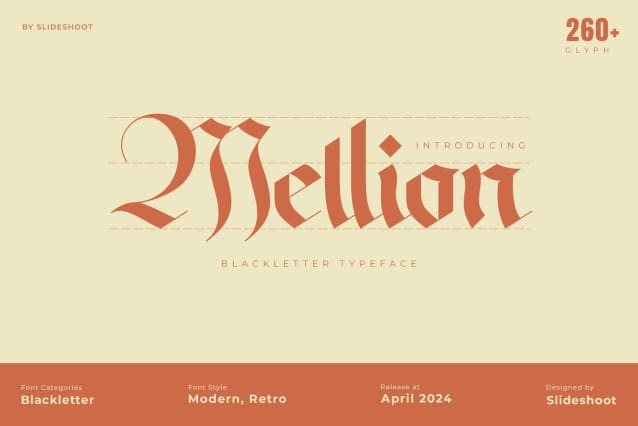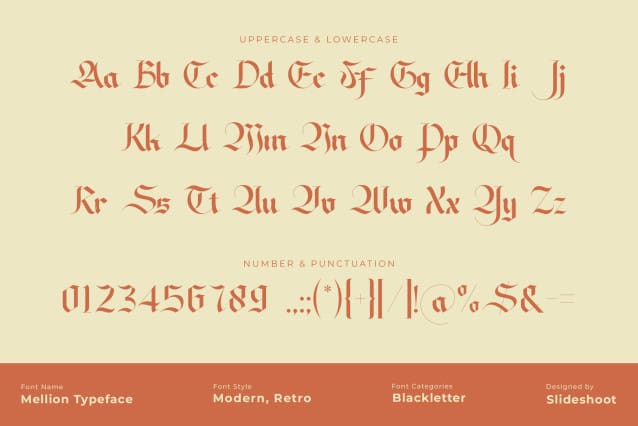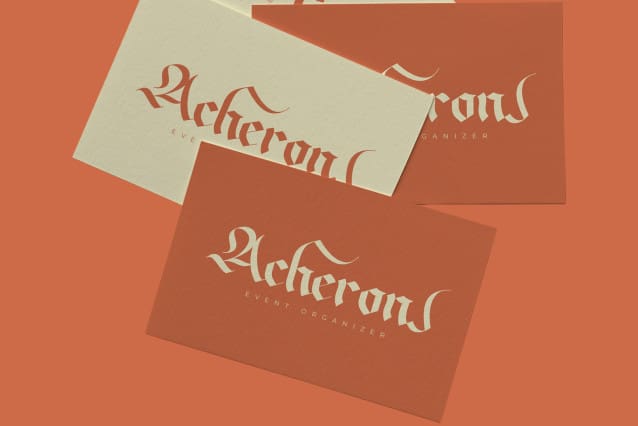
Mellion Blackletter Font
Mellion Blackletter Font is a balanced, smooth, elegant and blackletter font. He has a beautiful character. It fits perfectly with invitation card designs, company logos, movie titles, movie names, business cards, book titles, brand names and various other designs. Mellion Blackletter is a subtle blackletter font that exudes sophistication and elegance. Its stylish alternations and ligatures make this font the perfect partner for any project.